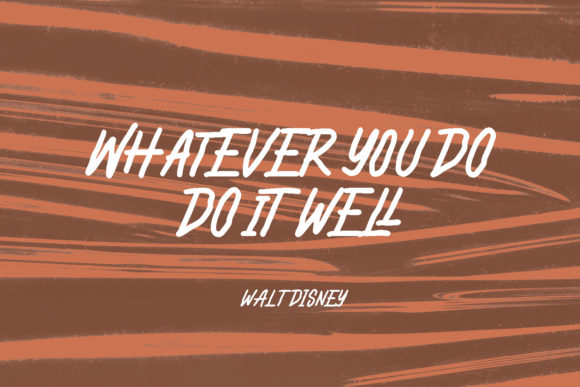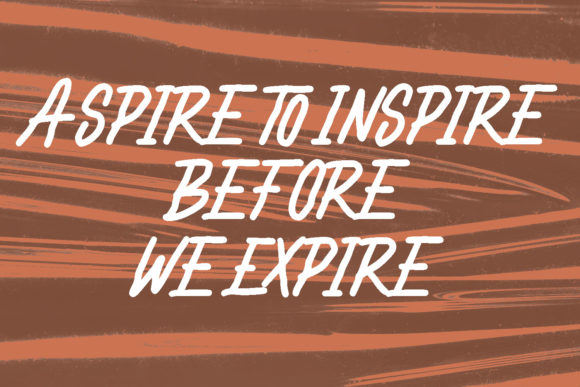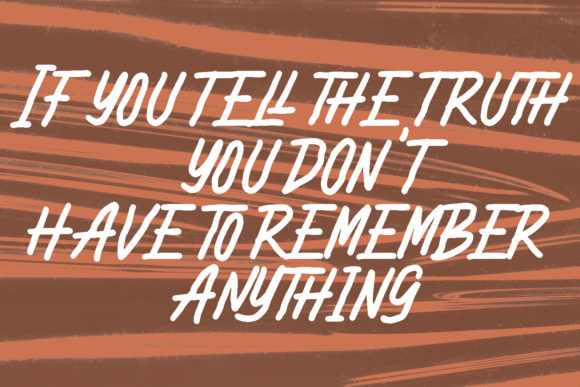
Introduction to Lallikalo Font
Lallikalo is a relaxed, casual and brushed display font.
This font is suitable for designs such as t-shirts, sportswear, logos, advertisements, clothing, and more .
Why Choose Lallikalo Font?